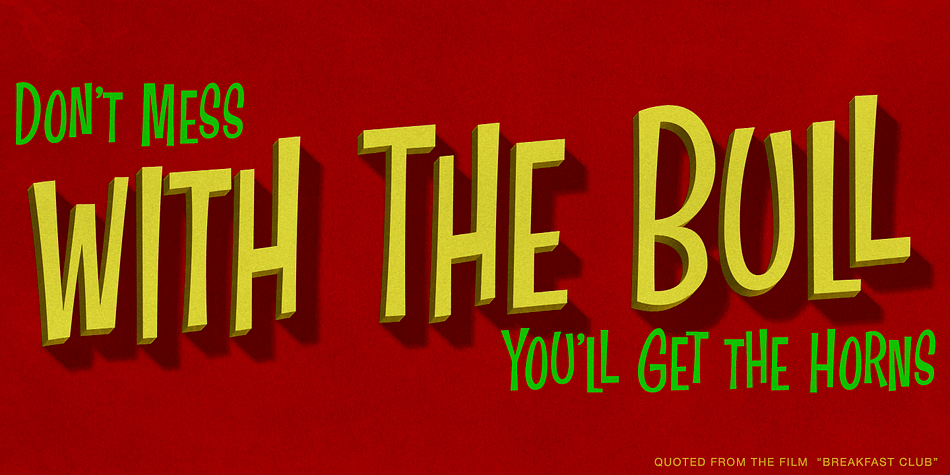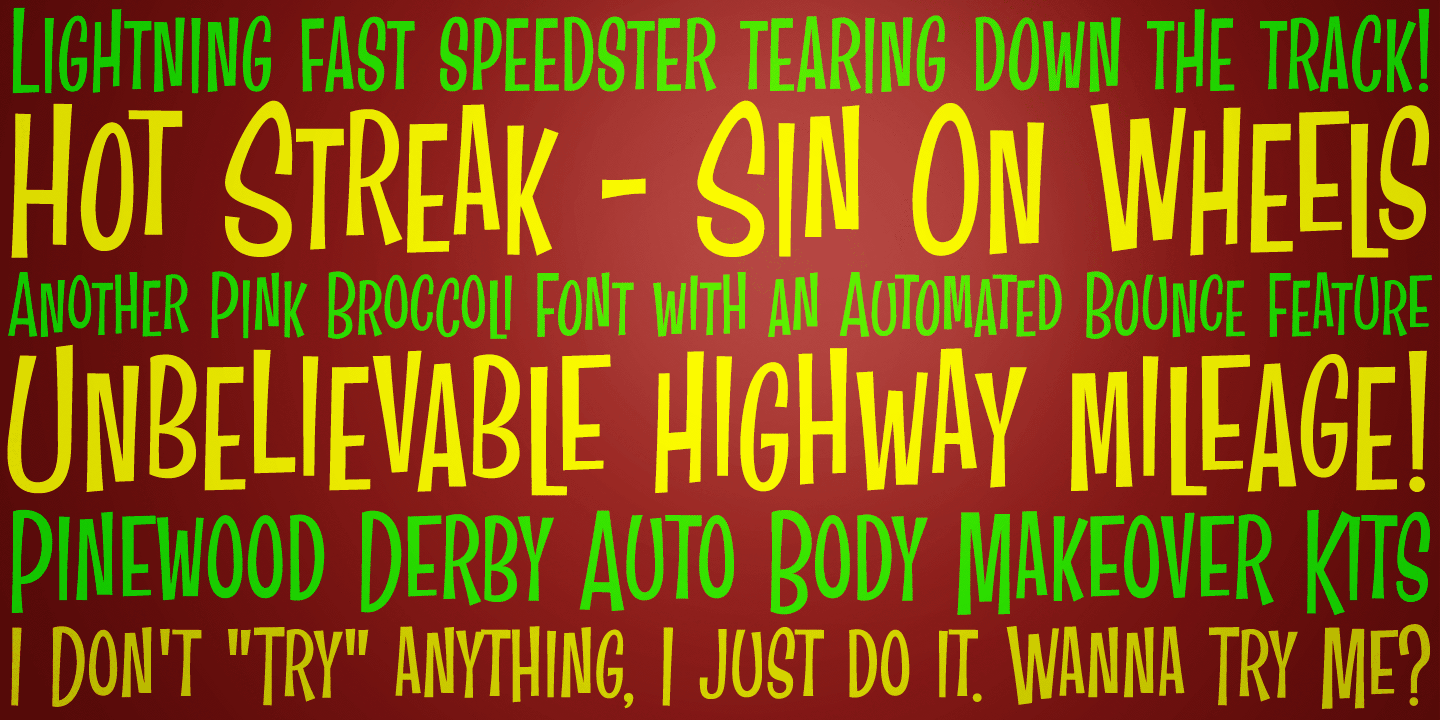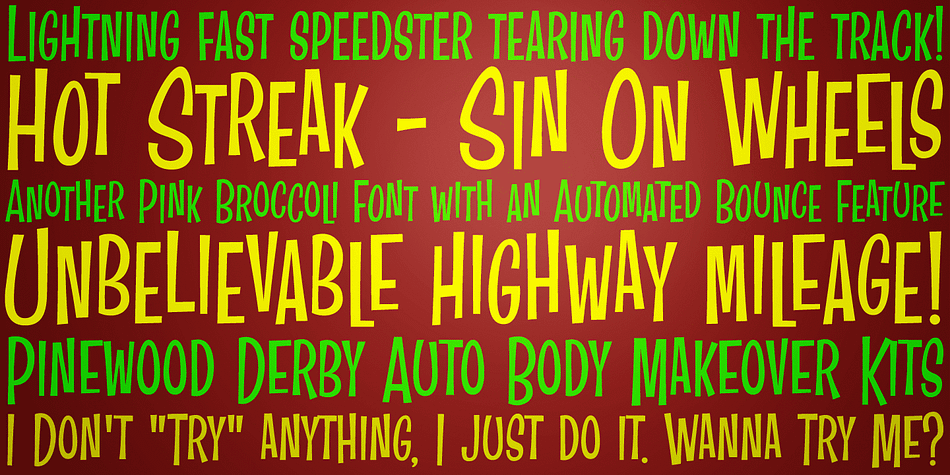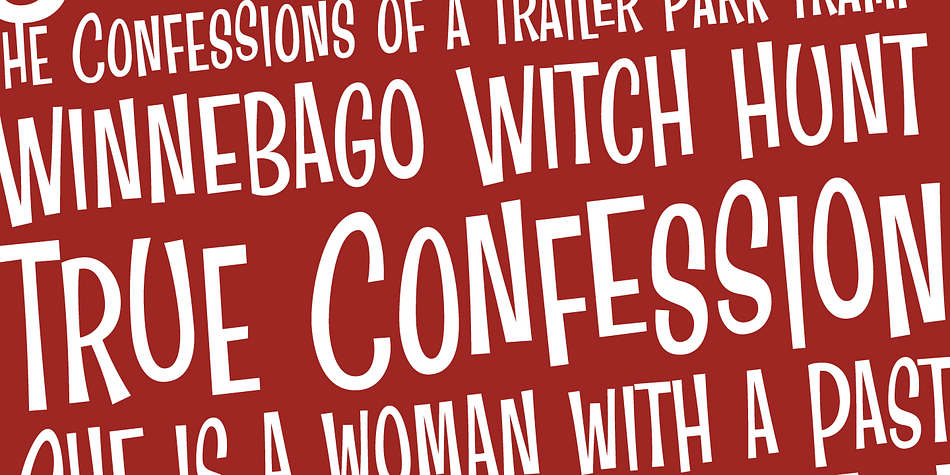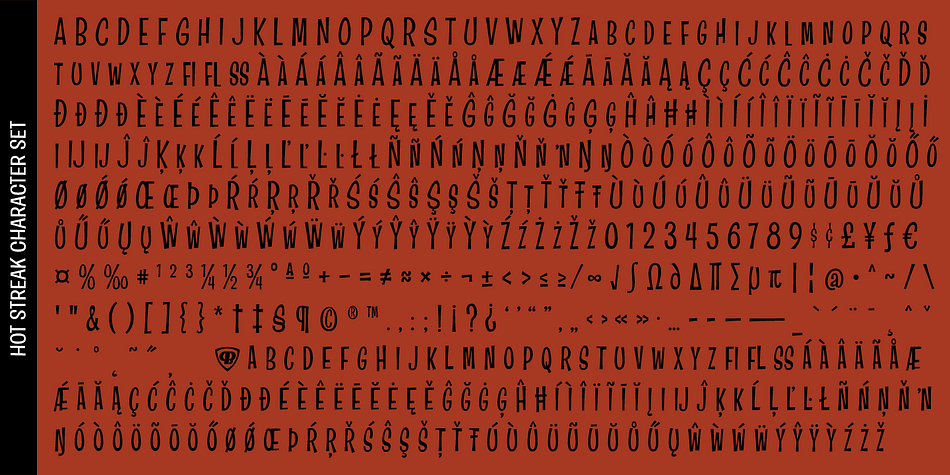
Designed by Phil Bracco, Hot Streak PB is a hand display and kids font published by Pink Broccoli.
If you’re looking for something offbeat and animated with an attitude, well, you’ve found it!
Hot Streak is a retro font inspired by an old pulp paperback called Sin on Wheels, and it gives what started as a simple title a lot of life.
Let Hot Streak turn up the heat on your designs!
You’ll find the Standard Ligatures feature changes up double letter combinations, the Stylistic Alternates feature raises up all of the smallcaps to align at the top of the capitals, and the Contextual Alternates feature turns on an automatic bounce feature that brings eve more life and attitude to an already spunky font.